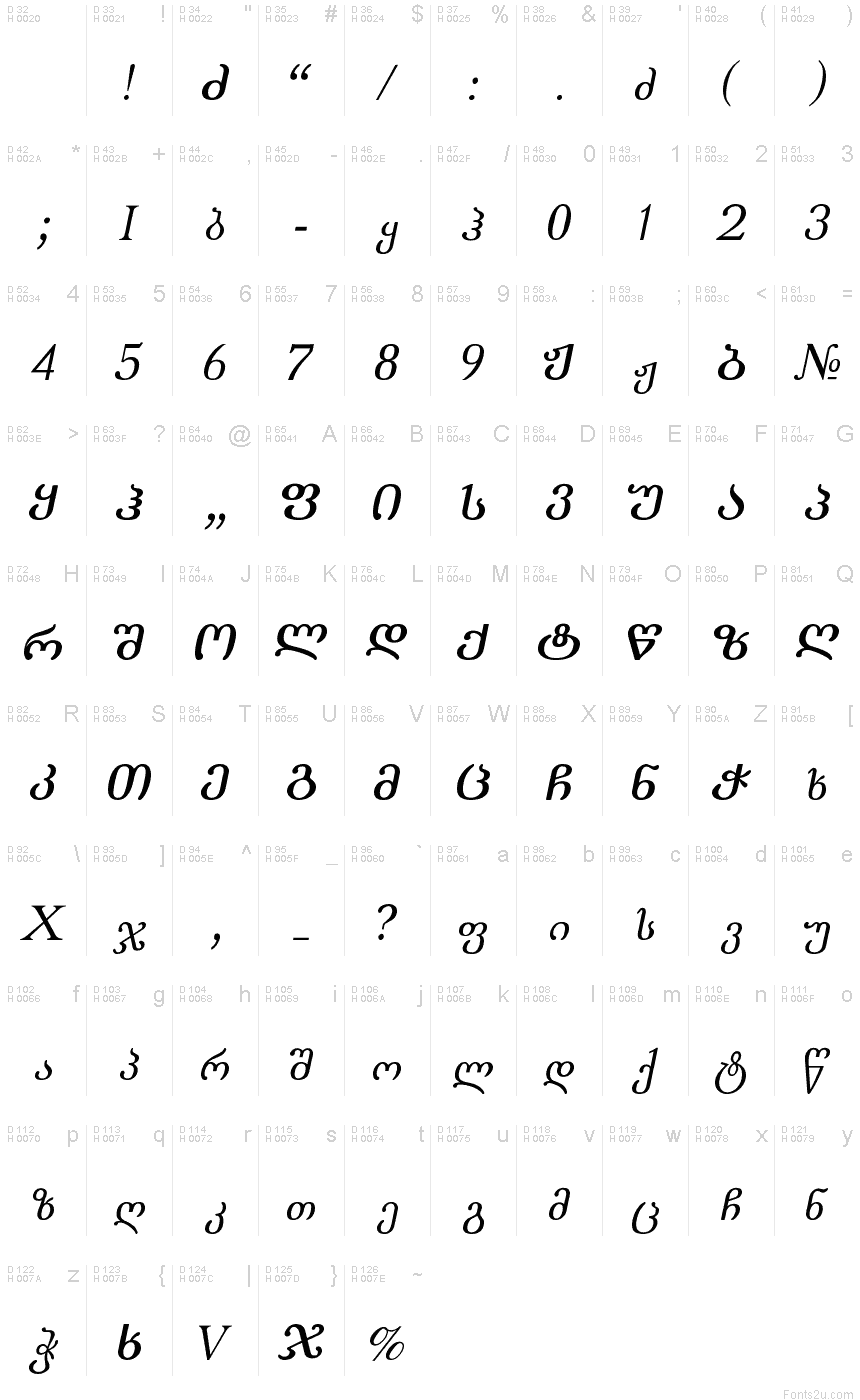
Literaturuly-ITV Italic by Alexander and Temuri Imnaishvili is a free calligraphic font with sweeping, highly contrasted strokes. Its rounded letters grow from broad loops and fine joins, with long curling flourishes that give the writing a lively, theatrical silhouette.
It is especially convincing for literary book covers, where the expressive line echoes handwritten titles. It also suits poetry posters and cultural event graphics. The ornamental curves connect these uses to traditional pen lettering and the atmosphere of manuscripts.